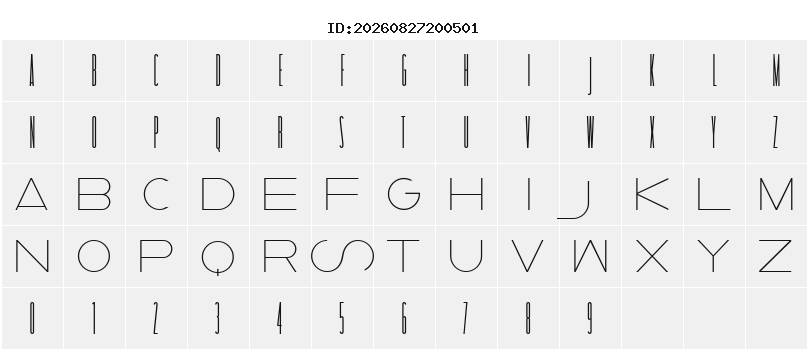
• Font Name: taller evolution
• Designer: Cosimo Lorenzo Pancini
taller evolution.ttf is a modern, elegant sans-serif font designed for ultimate readability and visual harmony. Perfect for branding, headlines, web design, and print materials.